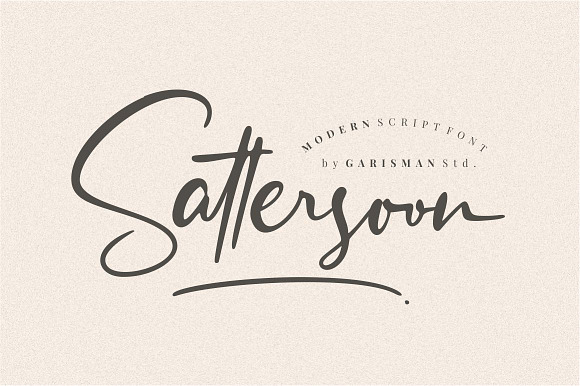
Sattersoon Modern Script Font
Sattersoon Modern Script Font by Garisman is a font selected for branding, posters, packaging, typography.
Why Sattersoon Modern Script Font is worth a look
Sattersoon Modern Script Font by Garisman fits naturally into Branding, posters, packaging, typography.